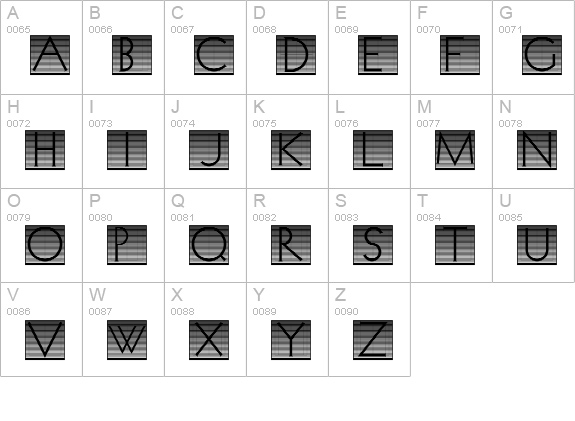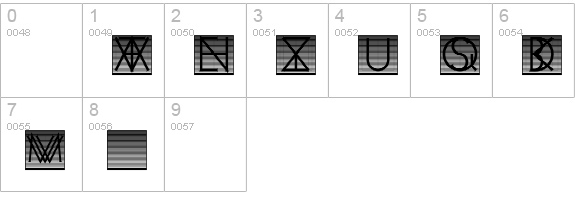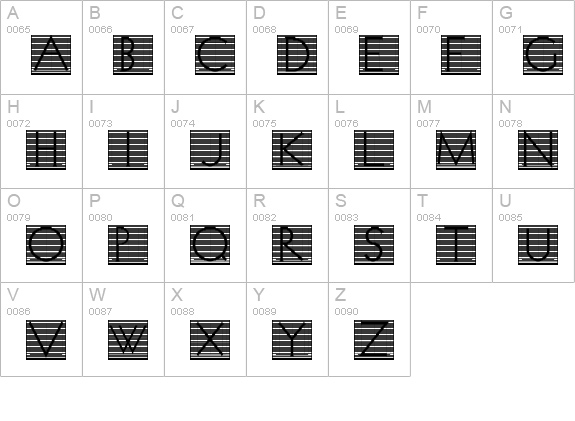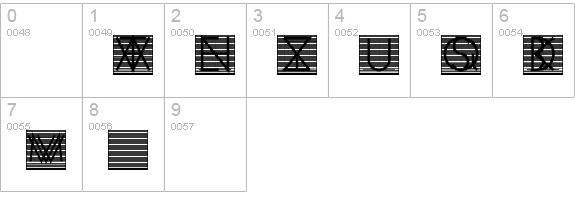
Introducing VenetianBlind, a captivating and versatile font that will add a touch of elegance and sophistication to your design projects. This exquisite typeface takes inspiration from the timeless allure of Venetian blinds, combining clean lines with a distinct sense of depth and texture. VenetianBlind is the perfect choice for various design applications, from sleek and modern website layouts to luxurious branding materials. Its unique blend of classic and contemporary elements allows it to effortlessly capture attention and create a lasting impression. But what makes VenetianBlind truly exceptional is that it is not only visually stunning, but also freely available to download at FontsMarket.com. Yes, you read that right! This exceptional font can be yours without any cost, making it an invaluable resource for designers and creatives alike. With VenetianBlind, you have the freedom to explore endless possibilities and unleash your creativity. Whether you're crafting a professional presentation, designing captivating advertisements, or simply adding a touch of elegance to your personal projects, this font has got you covered. Featuring a wide range of weights and styles, VenetianBlind offers the flexibility to perfectly suit any design concept. Its clean and legible letterforms ensure effortless readability, while its subtle curves and intricate details add a touch of finesse to every character. So why wait? Experience the beauty and versatility of VenetianBlind font today. Head over to FontsMarket.com and download this remarkable typeface for free. Enhance your designs, captivate your audience, and let VenetianBlind elevate your creative endeavors to new heights.